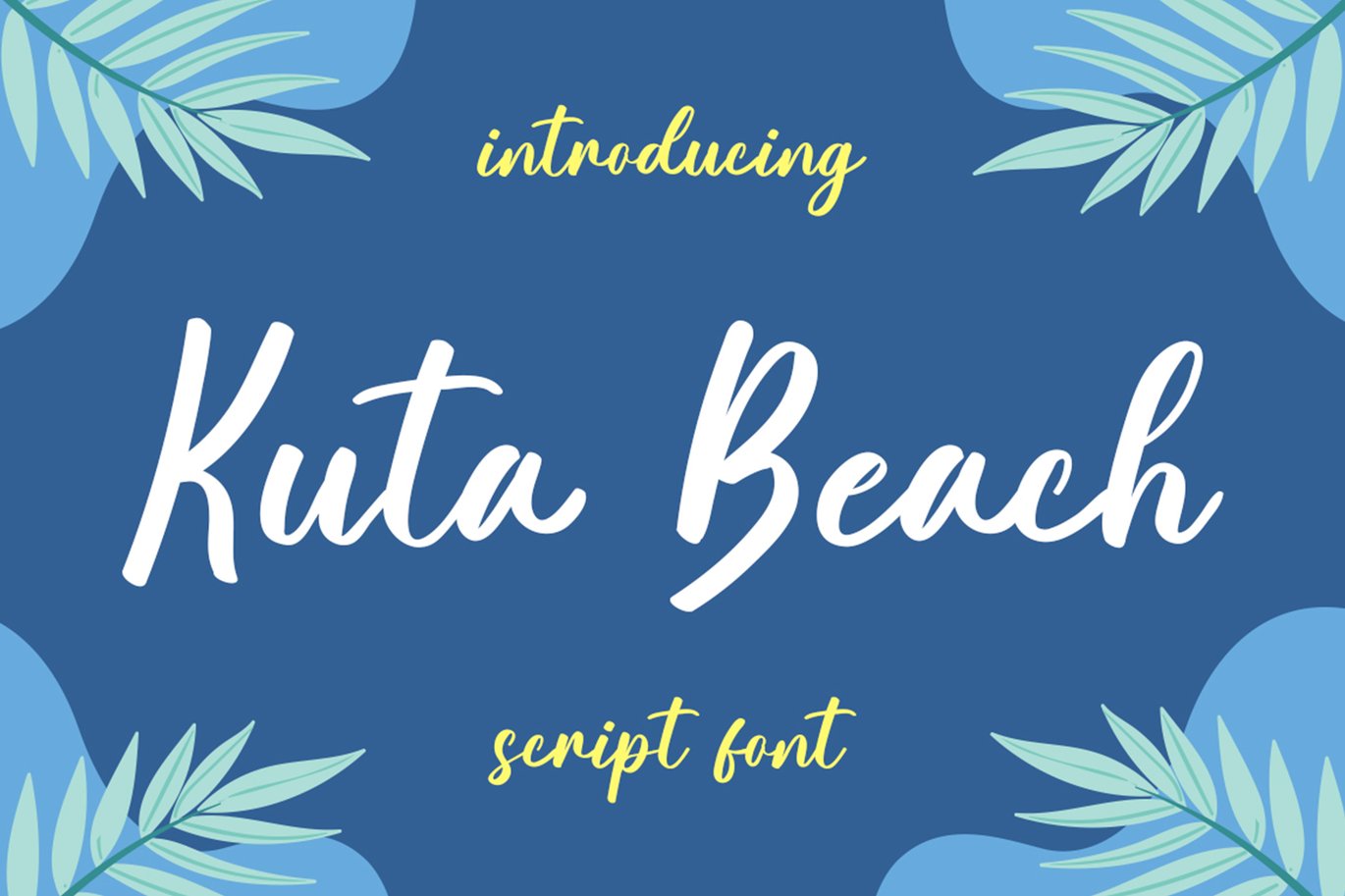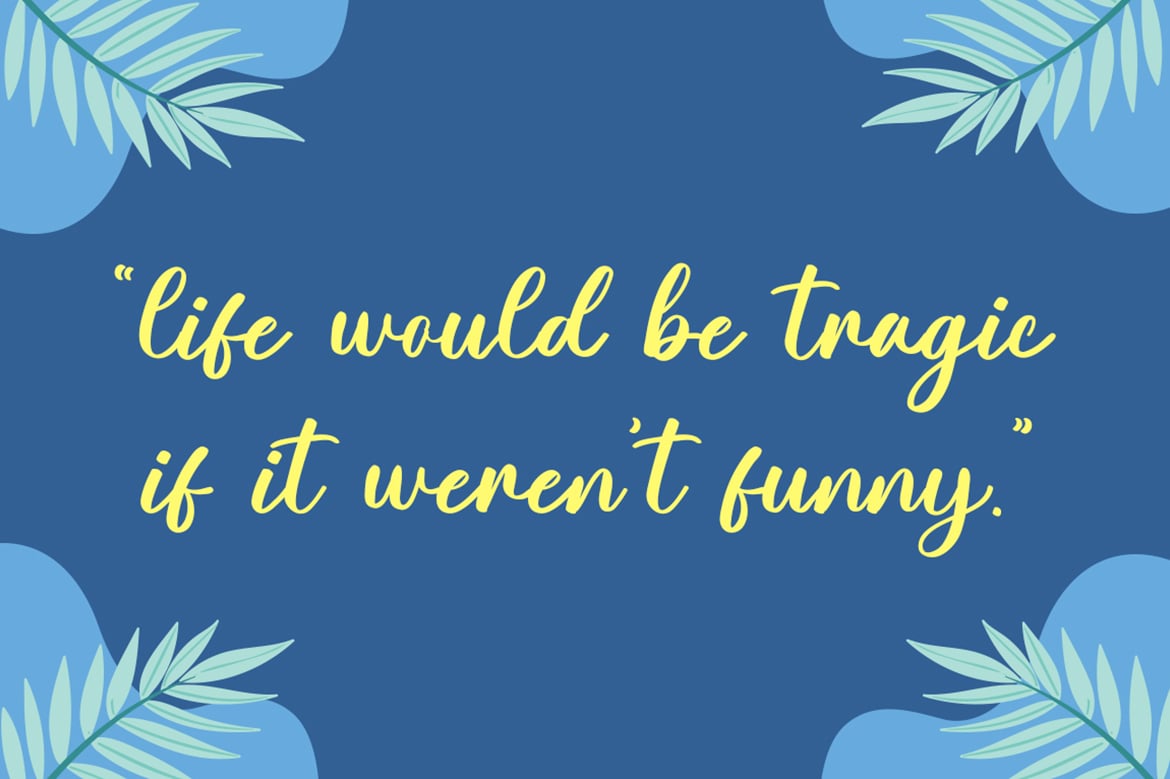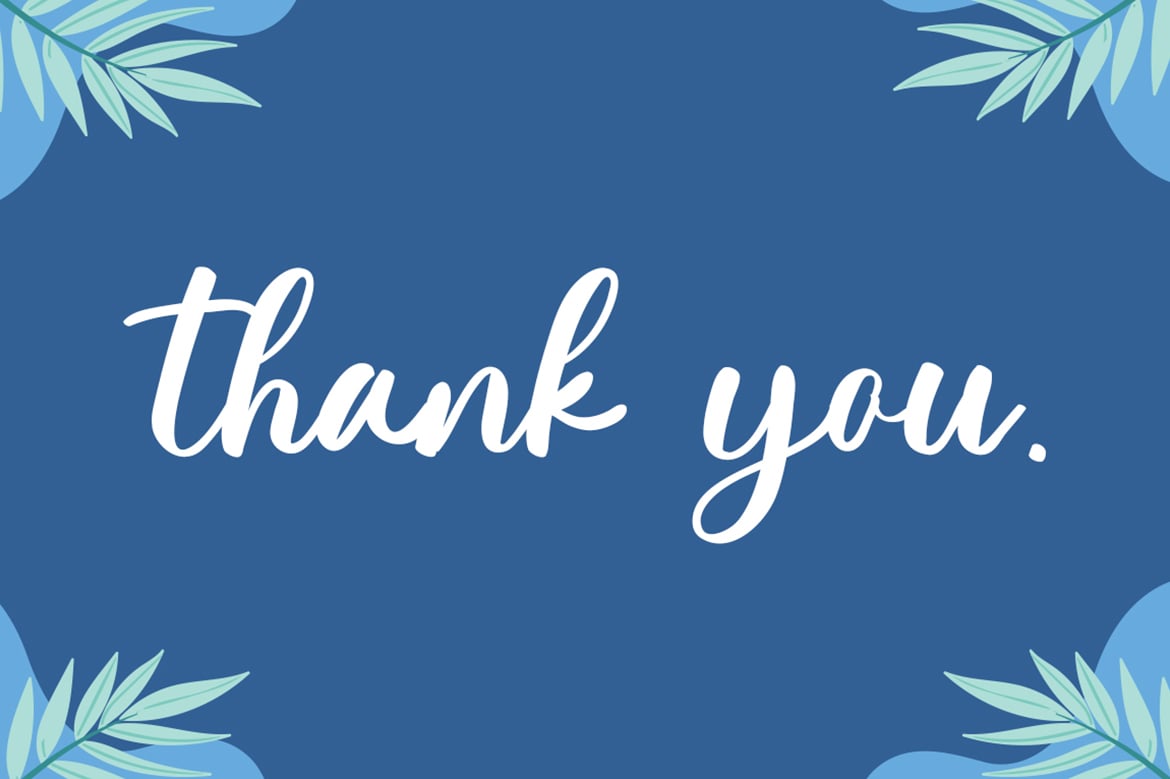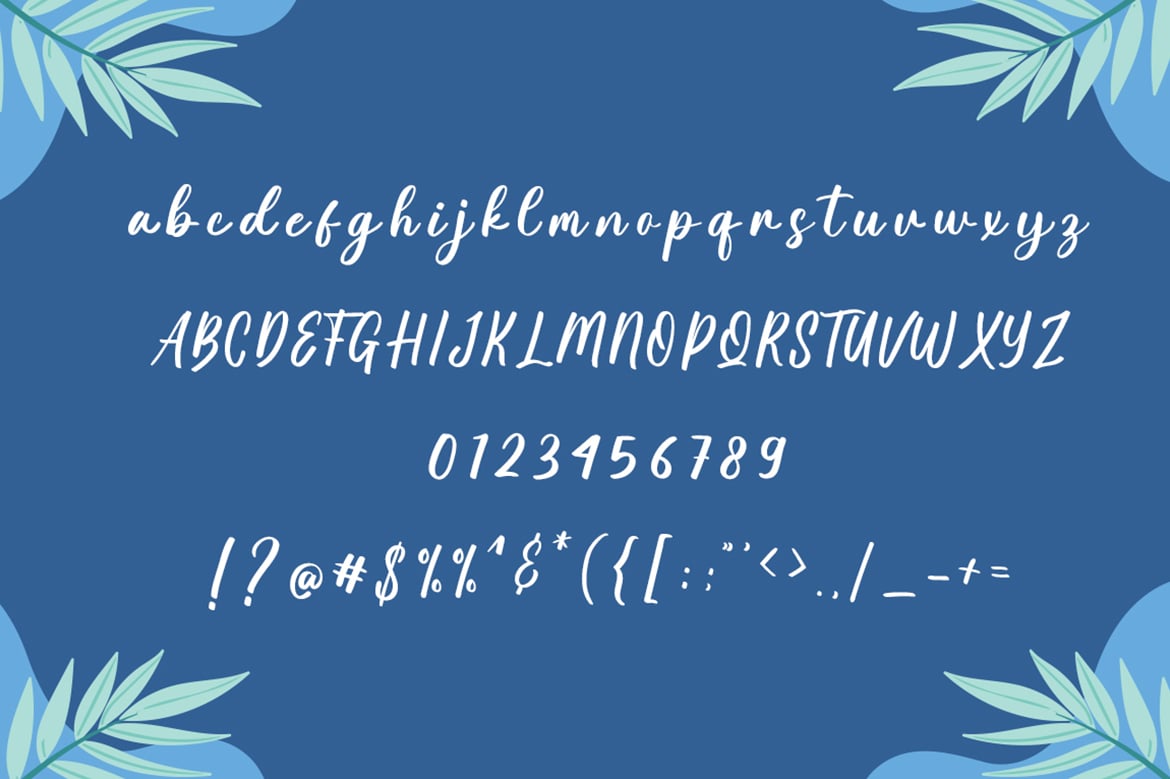
Kuta Beach – Summer Font
Kuta Beach is a sweet font and modern Calligraphy with a beauty feel. Its distinct and well rounded letters make this font a masterpiece.
This font is perfect for use on branding, fashion, weddings, social media, logotype, magazines, quotes, lettering, watermarks, invitations.